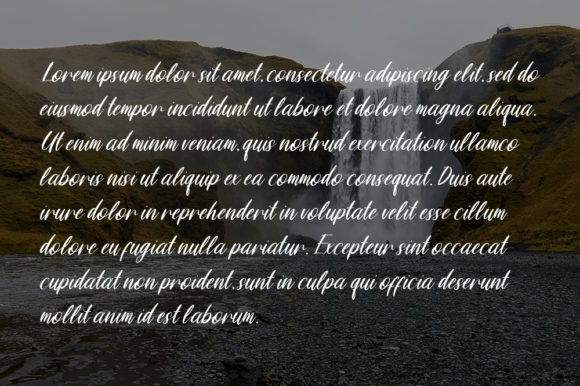
Introduction to Loosy Brush Font
Remember that moment when you’re working on a creative project and the perfect font just eludes you? You want something that captures the essence of your idea, something that speaks directly to your audience’s hearts. That’s where the Loosy Brush Font comes in – a game-changing script that will transport your designs to a whole new level.
Designed to mimic the natural flow of a brush, the Loosy Brush Font delivers an authenticity that’s hard to find in other fonts. Its unique build, crafted by the human hand, gives it an organic feel that’s simply irresistible. Whether you’re working on a design project or just need a high-quality font for your creative endeavors, the Loosy Brush Font is a valuable resource that’s sure to impress.
Key Features of Loosy Brush Font
- Unique, hand-drawn design with a loose, expressive feel, perfect for creative projects and design resources.
- High-quality font with transparent background, allowing for seamless integration into various design applications.
- Perfect for use in creative projects, such as illustrations, graphics, and typography-based designs, where a unique and expressive font is required.
Honest Review: Loosy Brush Font
As a designer, I’m always on the lookout for high-quality fonts to elevate my creative projects. I recently stumbled upon the Loosy Brush Font, and I’m excited to share my thoughts on this design resource.
What works well: ✨ The Loosy Brush Font has a unique, hand-drawn feel that’s perfect for adding a touch of personality to your designs. The font is highly customizable, with a transparent background that makes it easy to layer over other elements. The free download option is also a major plus – it’s always great to have access to quality fonts without breaking the bank.
What doesn’t: ⚠️ While the Loosy Brush Font is high quality, it can be a bit challenging to read at smaller font sizes. Additionally, the font is quite large, which can make it difficult to use in tight spaces. It’s also worth noting that the font’s creative, brush-stroke aesthetic may not be suitable for all types of projects – for example, it might not be the best choice for a formal or corporate design.
Overall impression: I’m really impressed with the Loosy Brush Font, and I think it’s a great addition to any designer’s toolkit. With its unique feel and high level of customization, it’s perfect for creative projects that require a touch of personality.
Pros:
- Unique, hand-drawn feel
Cons:
- Difficult to read at smaller font sizes
- Large font size can be challenging to use in tight spaces
- May not be suitable for formal or corporate designs
The Loosy Brush Font is perfect for designing with a transparent background, allowing you to create high-quality graphics that can be layered over other images or used as a standalone design element.
To get the most out of the Loosy Brush Font, try combining it with other design elements, such as illustrations or textures, to create unique and eye-catching graphics. You can also experiment with different font sizes and styles to add depth and interest to your design.
The Loosy Brush Font is ideal for a range of creative projects, including:
- Print materials, such as business cards and brochures